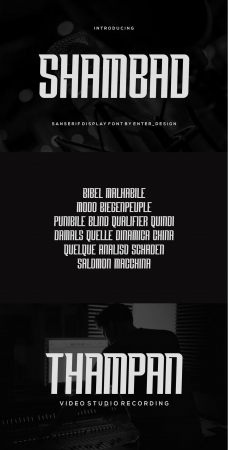
Introducing our new product Shambad Font - Modern Font
Shambad Font - Modern Font is a bold and authentic display font. The font is suitable for any branding project like logo, esport, and many more. outstanding in a wide range of contexts.